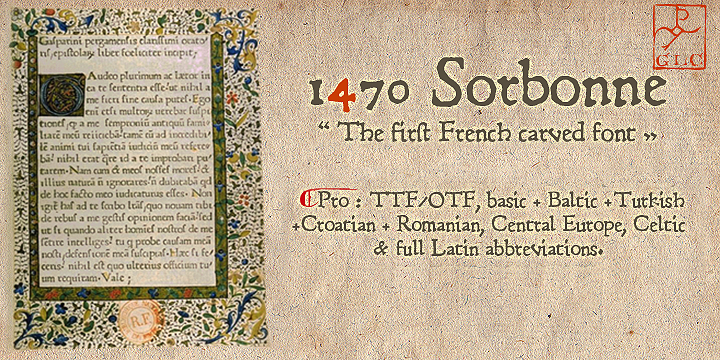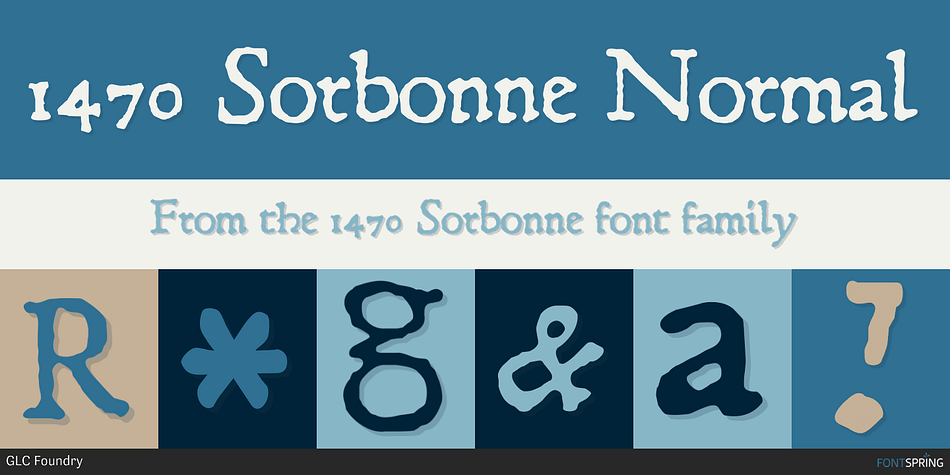
1470 Sorbonne Normal
1470 Sorbonne is a historical font published by GLC Foundry.
This family was created inspired from the first font carved and cast in France, for the Sorbonne University
This family was created inspired from the first font carved and cast in France, for the Sorbonne University’s printing workshop (Paris). The characters was drawn by Jean Heynlin, rector of the university - inspired from Pannartz’s - and in all probability was carved by Adolf Rusch. It has only one style, in one size (about 14 Didots points). We have added the U, J, W and Y, some accented characters and others not in use in the original, but the standard and historical ligatures and the numerous Latin’s abreviations are these of the original font.